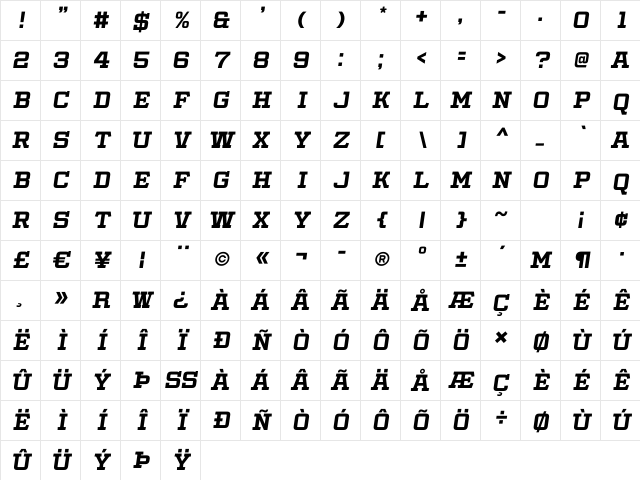
Slabby Prices Italic
Designer: Jayvee D. Enaguas (GrandChaos)
Design Context for Slabby Prices
Slabby Prices features prominent, blocky serifs that give it a confident, grounded presence - equally at home in editorial settings and bold branding work. The slanted form adds forward momentum and visual energy.
Pro Tip: Use Slabby Prices for headlines and subheadings where its slab serifs can make an impression. It also holds up well in mid-size body copy thanks to its sturdy construction.